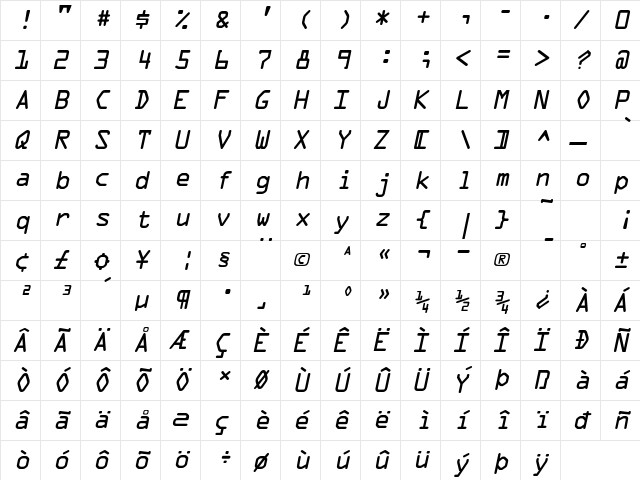
MicroscanA Oblique
Design Context for MicroscanA Typeface
MicroscanA takes a measured approach to typography — its balanced proportions and neutral character make it a reliable workhorse for both digital and print work. The slanted form adds forward momentum and visual energy.